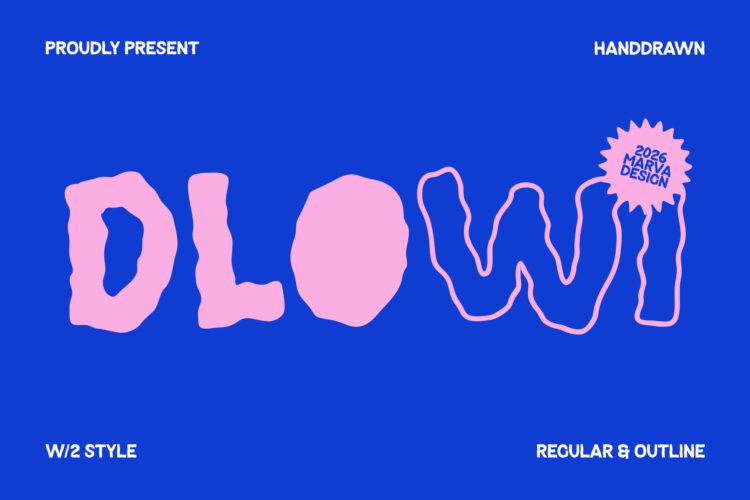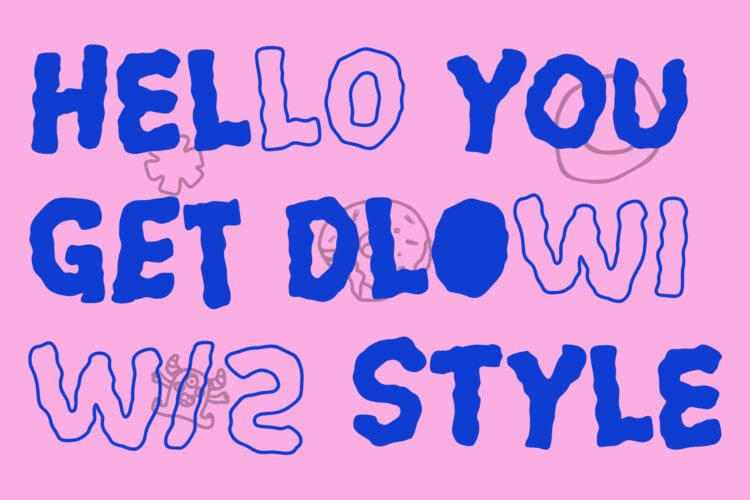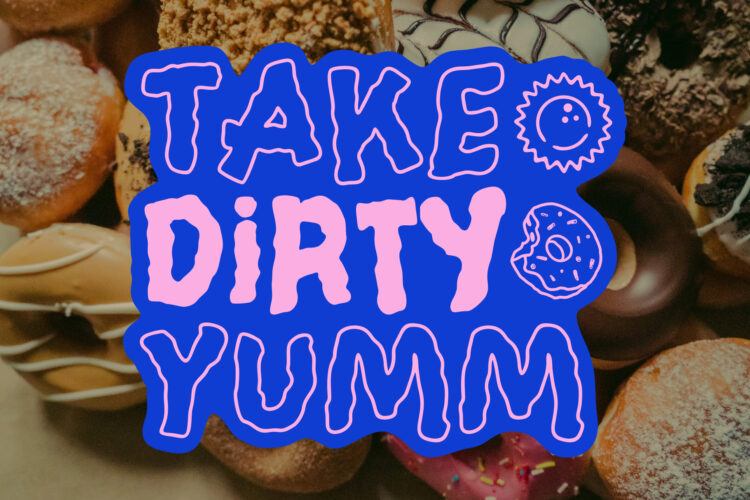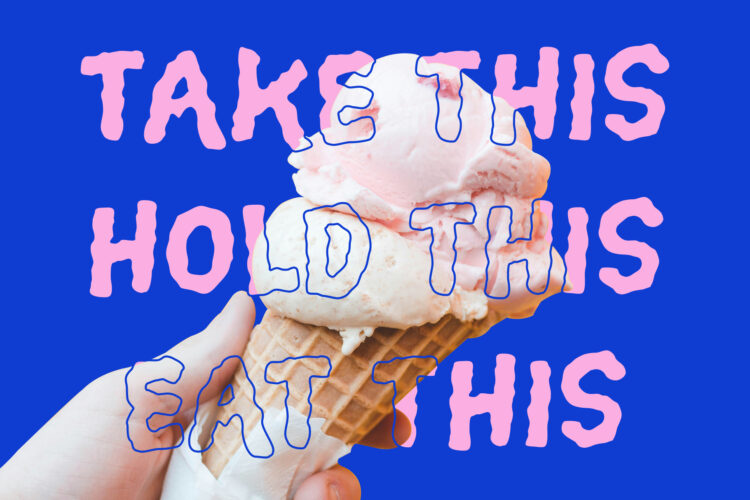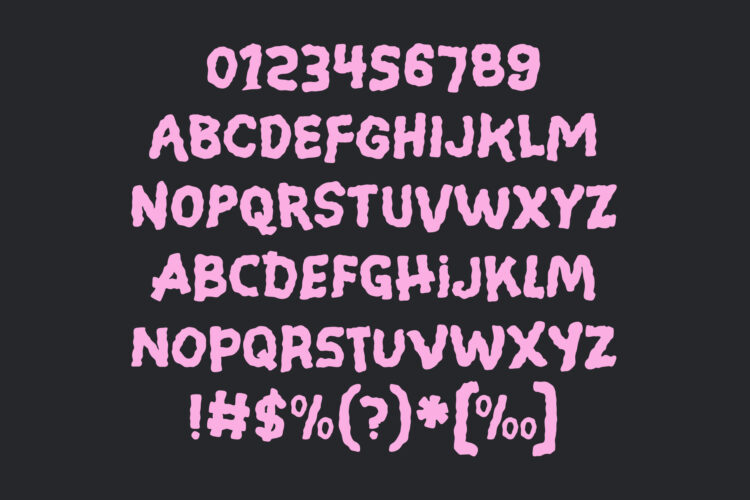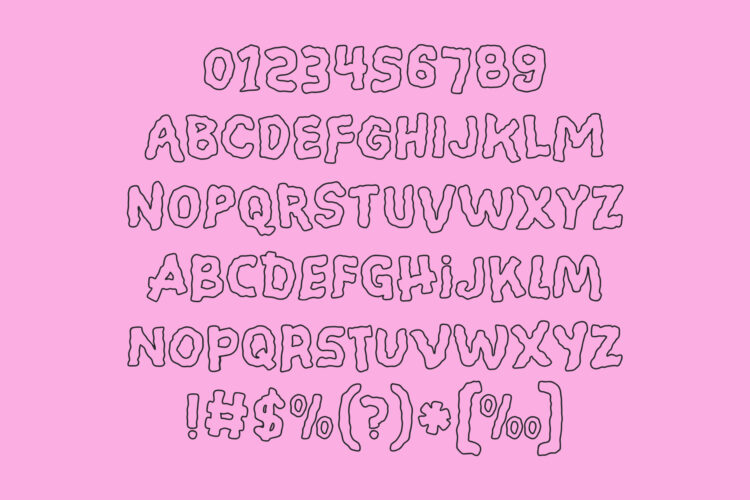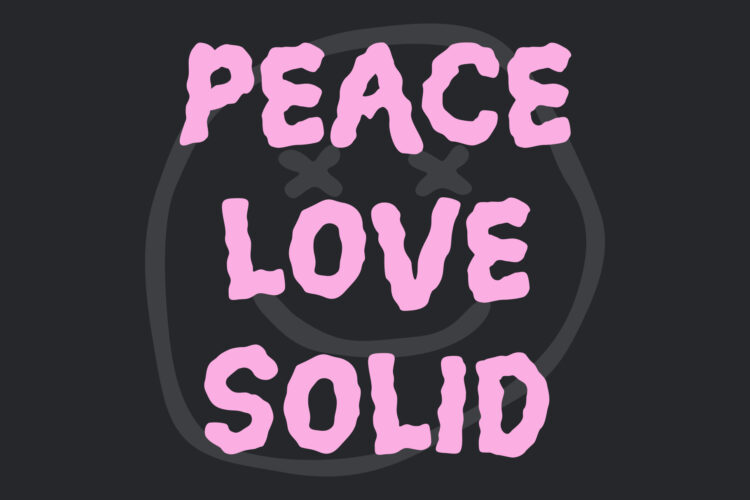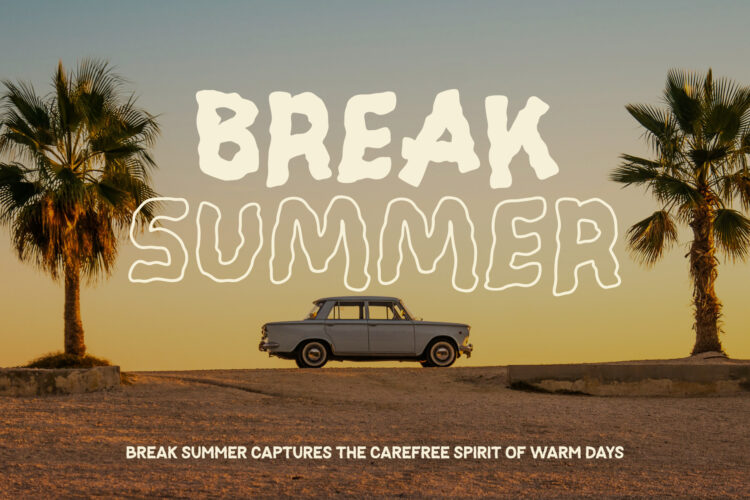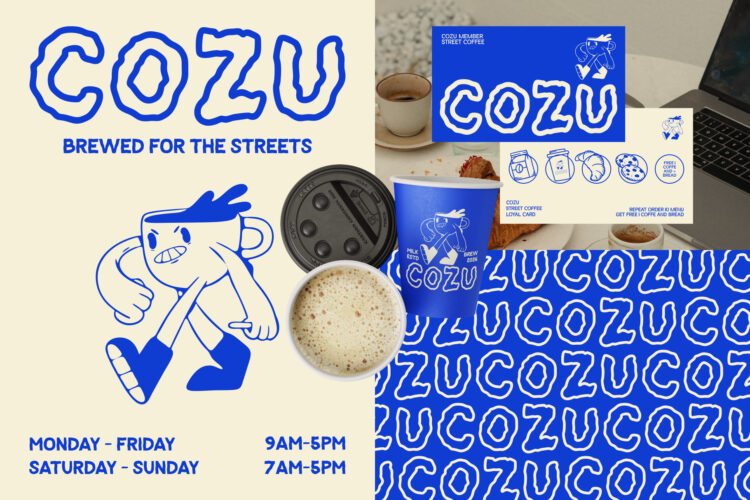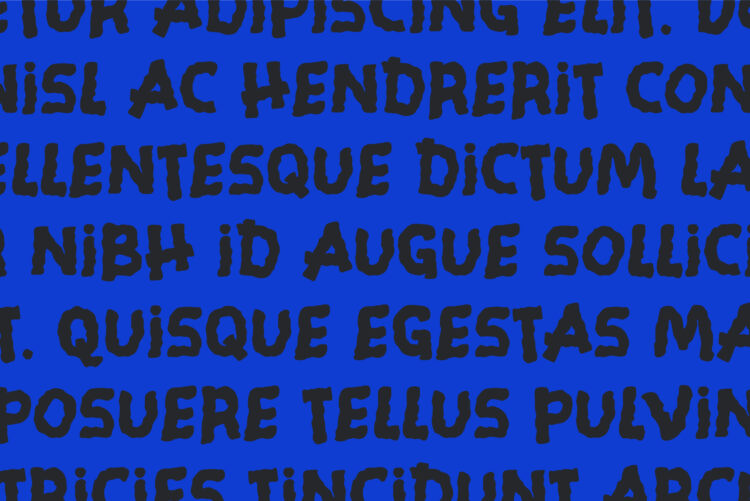
Playfull Display Handdrawn Typeface
Dlowi Regular
Dlowi Outline
Dlowi is a playful and expressive display font
Dlowi is a playful and expressive display font designed to bring energy, personality, and creativity into every project. Inspired by organic shapes, hand-drawn lettering, and retro cartoon aesthetics, Dlowi features bold, irregular letterforms with a naturally imperfect appearance that creates a warm, friendly, and approachable visual character.
Crafted with a distinctive chunky structure and soft, fluid contours, Dlowi captures the charm of handmade typography while maintaining excellent readability at large sizes. Each character is carefully designed to convey a sense of fun, spontaneity, and artistic freedom, making it an ideal choice for designers seeking a typeface that stands out with confidence and originality.
This font package includes two versatile styles: Regular and Outline, allowing users to create eye-catching typographic compositions with depth and visual contrast. The Regular style delivers a strong and impactful presence, while the Outline version adds a playful decorative touch that works perfectly for layered typography, branding accents, and creative display applications.